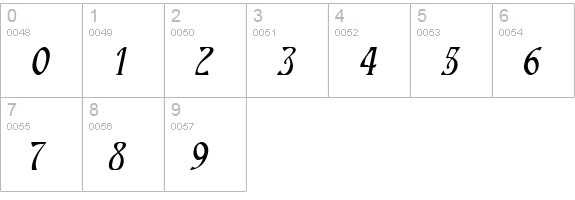
Nouveau Bold Italic is a strong, high-contrast, italic variant in the Nouveau typeface family \xE2\x80\x94 well suited to headlines, attention-grabbing titles, and strong calls-to-action.
Nouveau Bold Italic font is a stylish and modern typeface that brings a unique flair to any design project. Its bold and italicized characters exude a sense of confidence and sophistication, making it perfect for headlines, titles, and branding materials. The sleek, flowing lines of Nouveau Bold Italic add a touch of elegance and creativity to any text, making it stand out in a crowd. The best part? Nouveau Bold Italic font is available for free download at FontsMarket.com. This means you can easily access this stunning font and incorporate it into your designs without any cost. Whether you're working on a professional project or a personal creative endeavor, Nouveau Bold Italic font is sure to elevate your work and leave a lasting impression. Download it today and take your designs to the next level with this striking and versatile typeface.